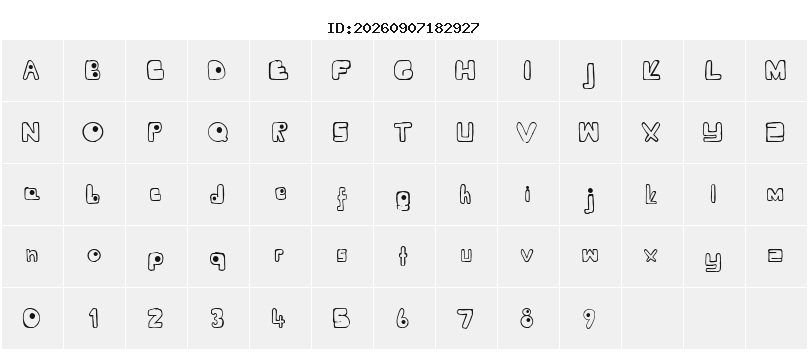
Ugly R Preview
• Font Name: Ugly R
• Full Font Name: Ugly R
About Ugly R.ttf
Ugly R.ttf is a modern, elegant sans-serif font designed for ultimate readability and visual harmony. Perfect for branding, headlines, web design, and print materials.